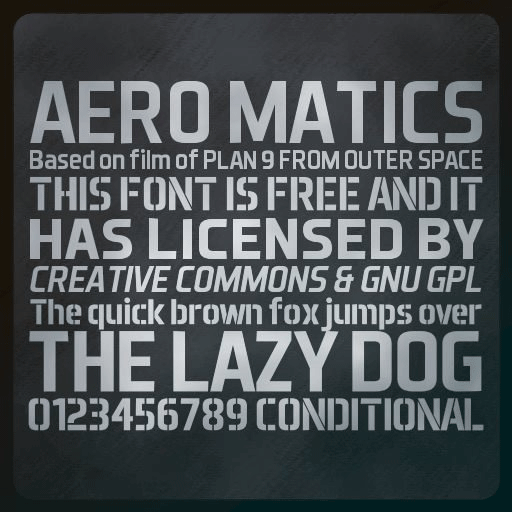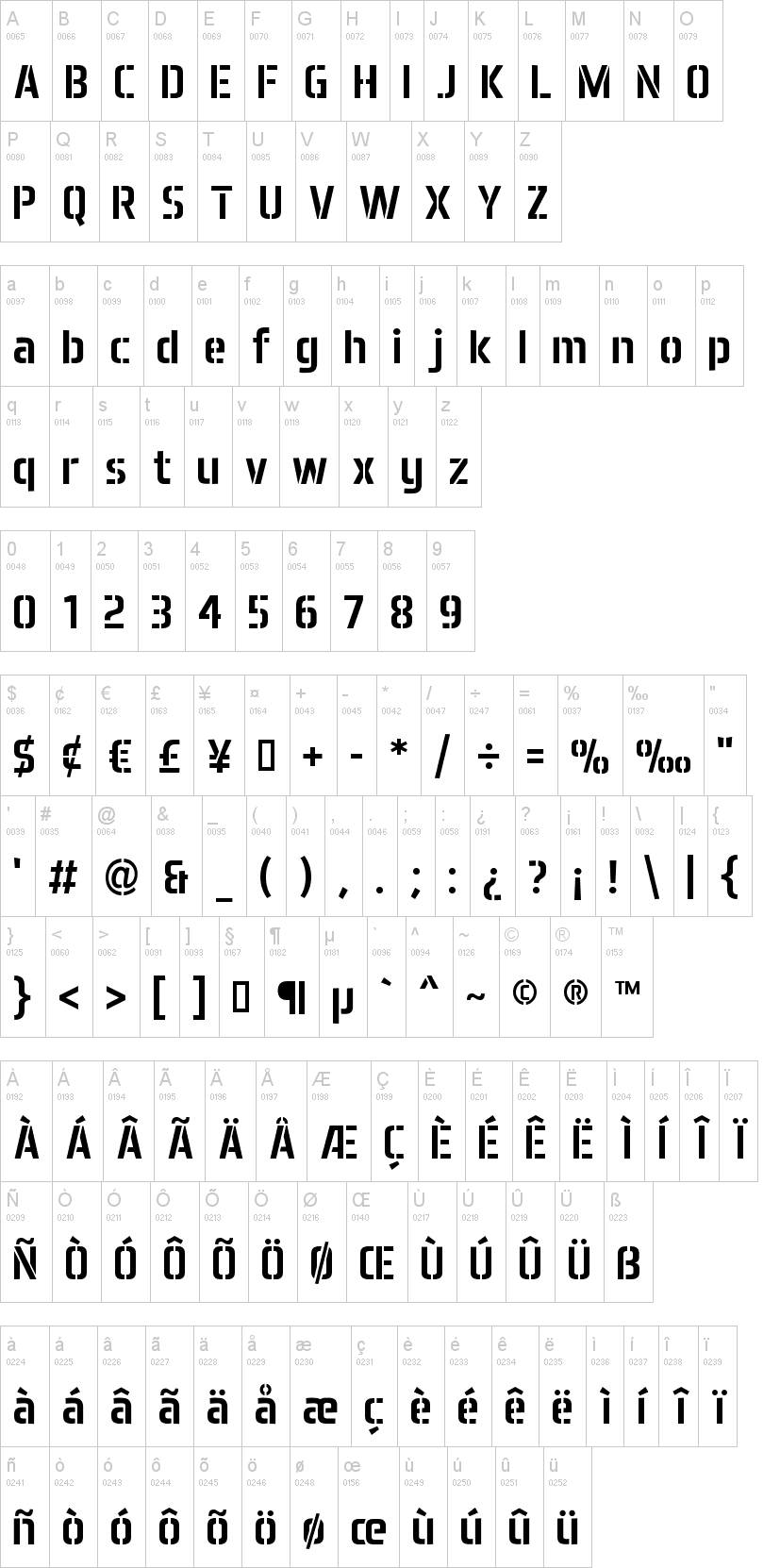
Aero Matics Stencil Italic.ttfAero Matics Stencil Bold.ttfAero Matics Stencil Bold Italic.ttfNote of the authorThis font has designed by Jayvee D. Enaguas and it has inspired in 1959 font from "Plan 9 from Outer Space."